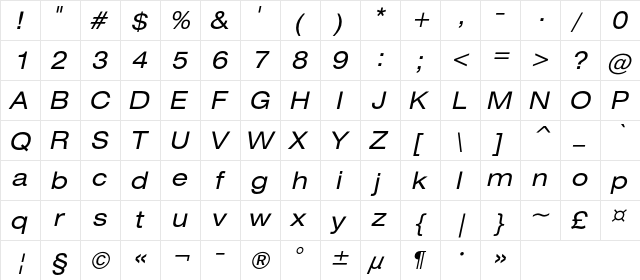
HeliosExtC Italic
Design Context for HeliosExtC Typeface
HeliosExtC is a composed and adaptable typeface that performs quietly and consistently across a wide range of design contexts. The dynamic lean of this cut emphasises speed and emphasis in any layout.
Pro Tip: Try HeliosExtC for annotation and caption copy alongside an upright companion — the contrast in angle creates a dynamic but ordered typographic system.